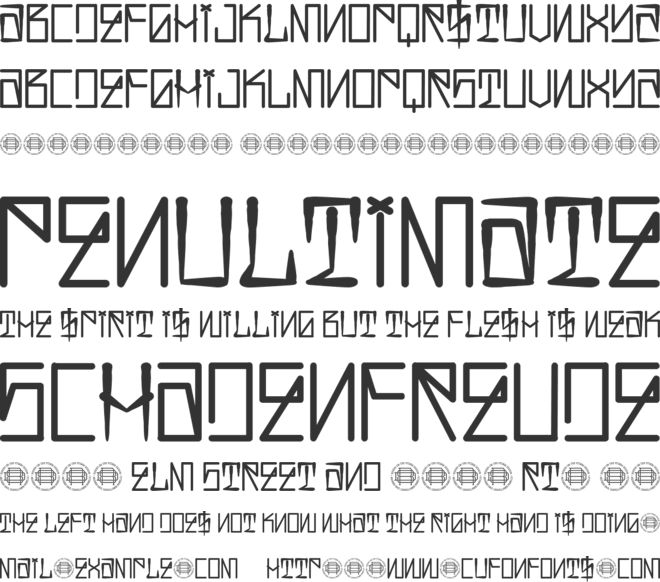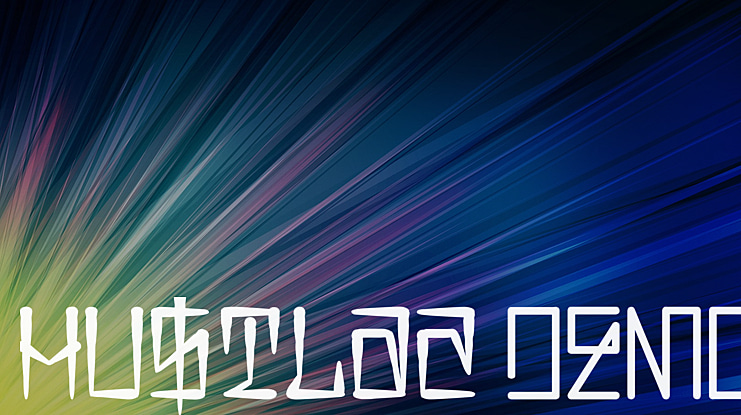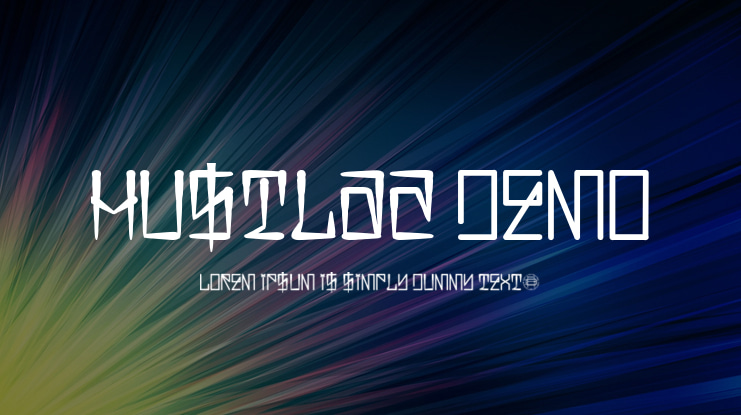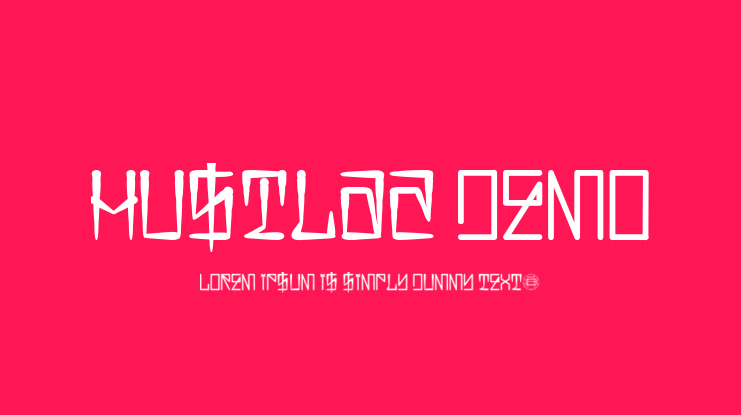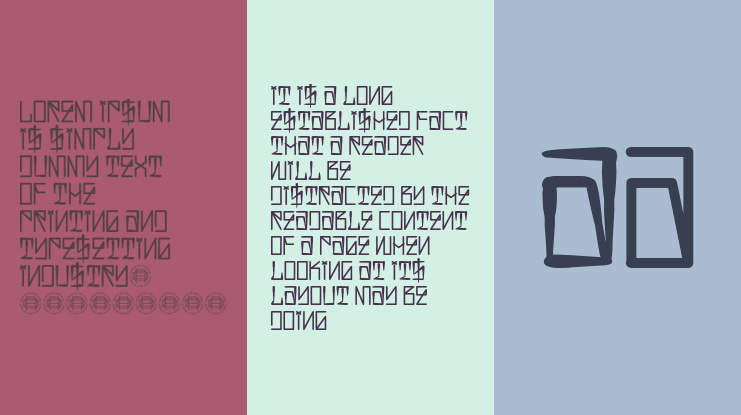
Hustlaz Demo Font
HU$TLAS is a typeface inspired by the style of letters of the urban culture of Cholos / Gangs, by Ricardo Saul Castellanos Pabello "Richie Mx" in the design studio "Riders on the Storm Design"